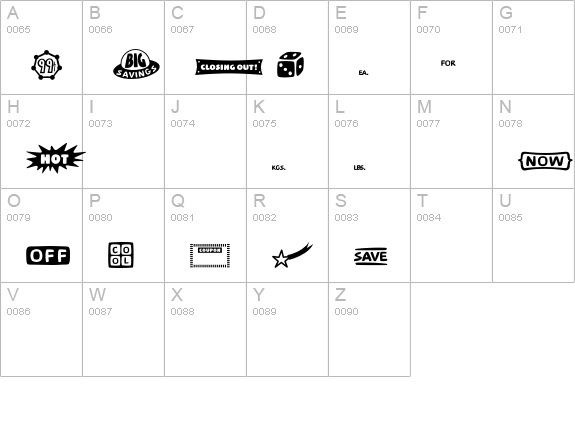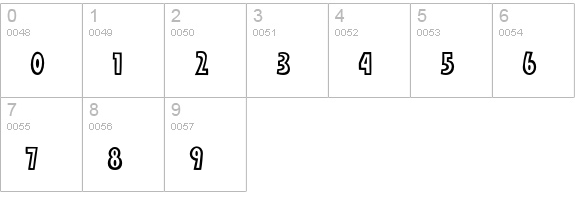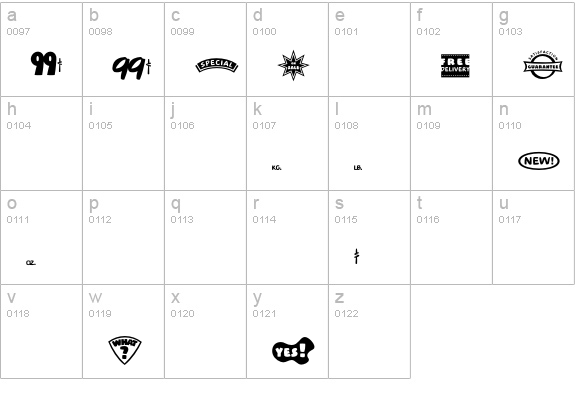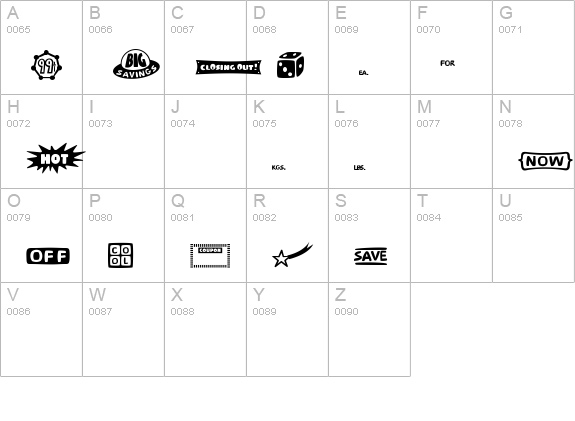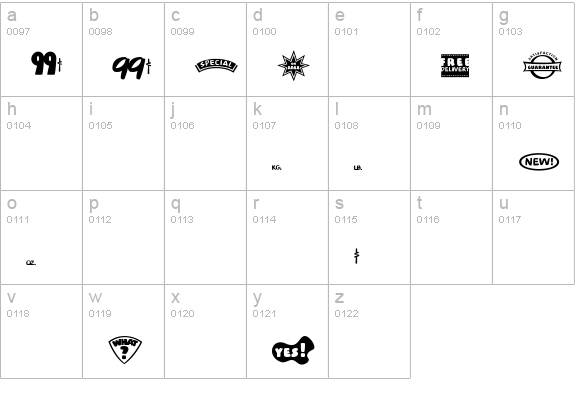
99-Special Font Details
Introducing the exquisite 99-Special font, a stunning typeface that exudes elegance and sophistication. With its unique design and intricate details, this font is perfect for adding a touch of luxury to any creative project. The 99-Special font is versatile and can be used for a variety of purposes, from branding to editorial design. What makes this font even more special is that it is available for free download at FontsMarket.com. Yes, you read that right - you can elevate your designs with this premium quality font without spending a dime. Don't miss out on the opportunity to enhance your projects with the 99-Special font, now easily accessible for free at FontsMarket.com.